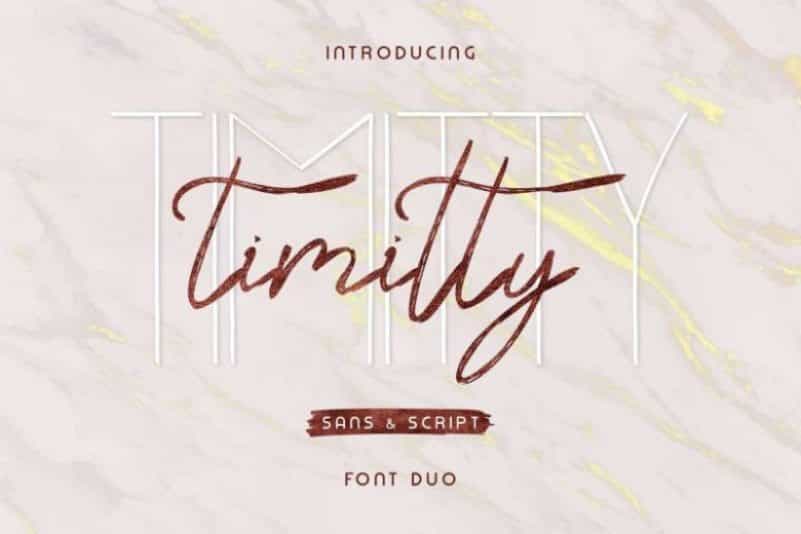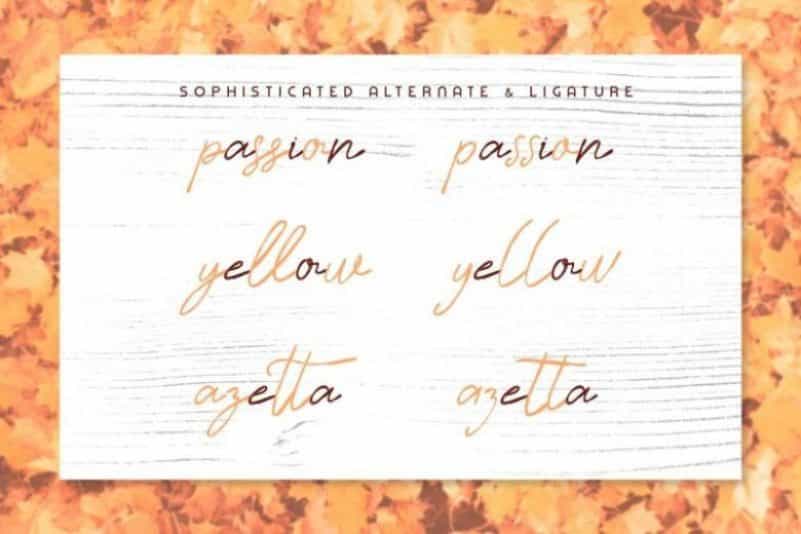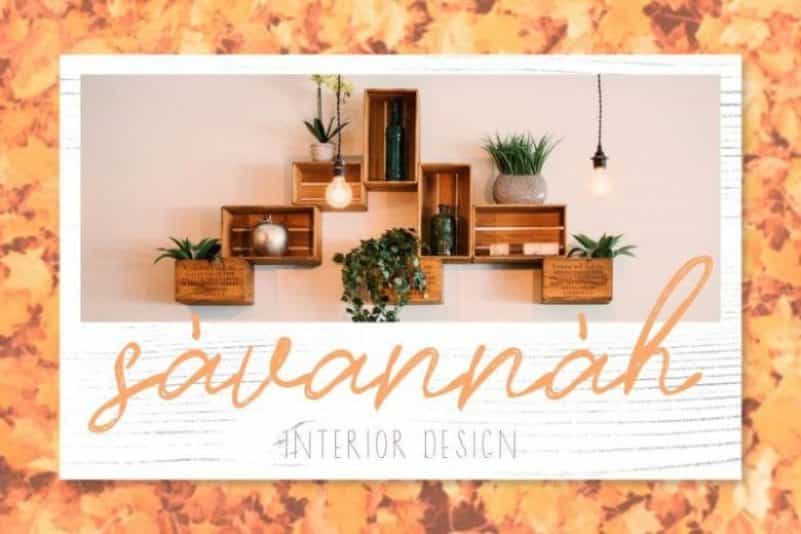
Discover Timitty Font Duo, part of the Sans Serif Brush collection—a versatile and unique font perfect for adding a personal touch to your projects. Download it for free and enjoy crafting designs with style, from invitations to social media posts. This font is available exclusively for personal use, giving you the freedom to create without limits. Unlock your creativity with Timitty Font Duo today!
Timitty, a stylish handwritten font with an interesting brush texture. It is a kind of thin modern calligraphy which makes it ideal for designing and digital works. Apply this font to the logos, social media, websites, blogs, instagram posts and stories business cards branding and anything else.